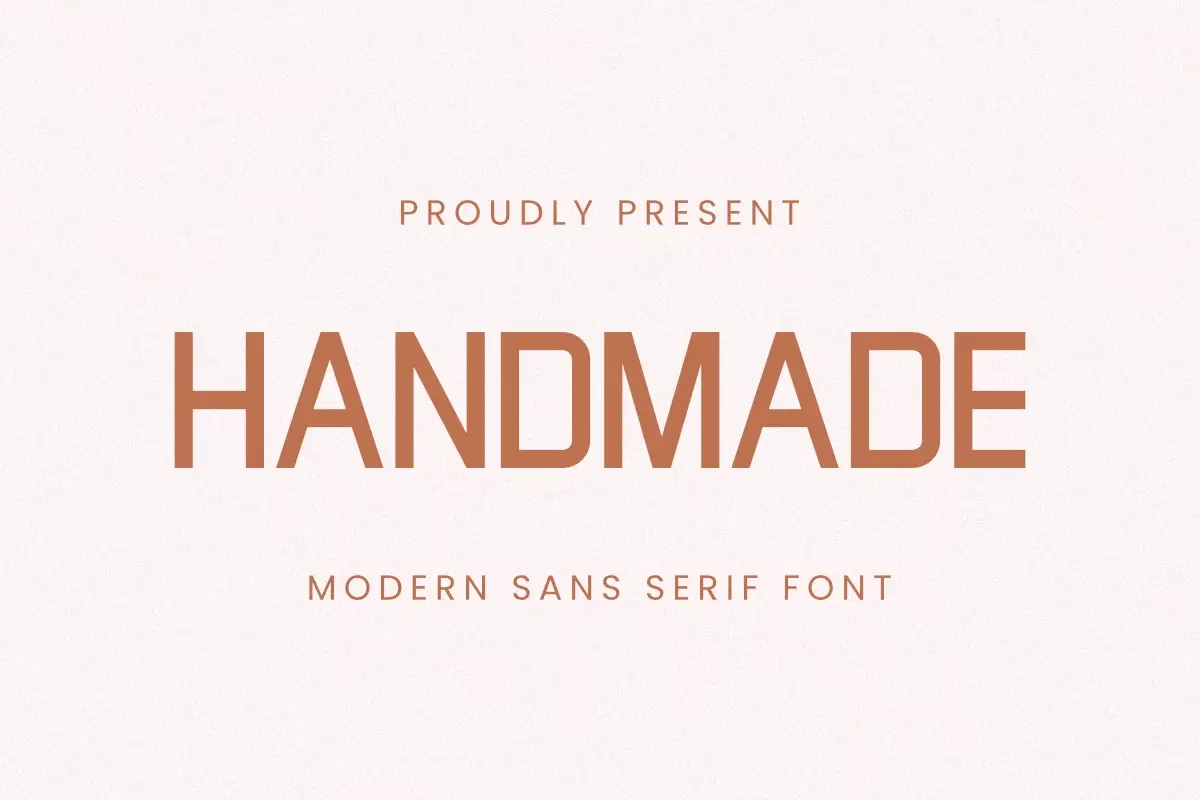
Handmade - Modern Sans Serif Font
Handmade is a minimalist modern sans serif typeface that perfectly balances clean lines with a personal, approachable feel. This versatile and clean display font features a simple, yet bold design that makes a strong statement without unnecessary flourishes. It's ideal for projects that require a sophisticated, handcrafted touch, such as T-shirt designs, branding, and logos. Its legible and modern aesthetic also makes it great for quotes, social media graphics, and editorial content.